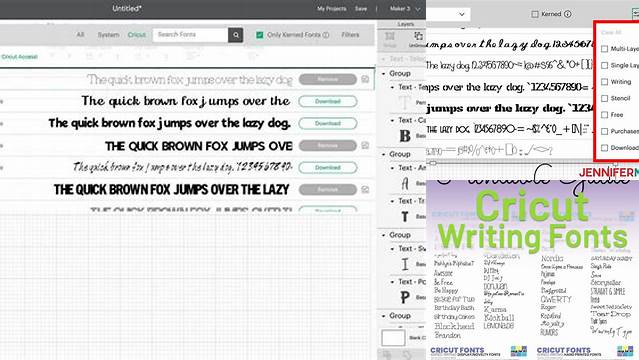
Cricut Access Fonts List: The Ultimate Guide For Crafters
Hey crafters! Ever wondered about diving deep into the world of Cricut Access fonts list PDF and unlocking a treasure trove of creative possibilities? Well, buckle up because weâre about to embark on an exciting journey! This guide will cover everything from understanding what Cricut Access is, to exploring the vast library of fonts available, and even how to manage and use those fonts effectively. Letâs get started, guys!
What is Cricut Access?
Okay, so first things first, letâs talk about what Cricut Access actually is. Think of it as a subscription service that gives you, the creative genius, unlimited access to a massive library of images, fonts, and ready-to-make projects. It's like Netflix, but for crafters! This means you can kiss those individual purchases goodbye and say hello to endless crafting fun. Cricut Access is designed to fuel your creativity without breaking the bank. With a subscription, you gain entry into a world where inspiration never runs dry. Whether you're into vinyl decals, personalized cards, or intricate paper crafts, Cricut Access provides the resources you need to bring your visions to life. The subscription model not only saves you money in the long run but also encourages experimentation and exploration of new crafting techniques. You can explore a variety of styles and themes, discovering fonts and images you might never have considered before. It's like having a personal crafting concierge, always ready to provide you with the perfect elements for your next project. Cricut Access also offers exclusive discounts on products and materials, adding even more value to your subscription. So, if you're serious about crafting and want to maximize your creative potential, Cricut Access is definitely worth considering. With its vast library and money-saving benefits, it's a game-changer for crafters of all levels.
Benefits of Using Cricut Access Fonts
One of the coolest perks of Cricut Access is the huge font library. Cricut Access fonts list PDF offers a diverse selection to elevate your projects. Forget about being stuck with the same old basic fonts. This subscription unlocks a world of typography possibilities. Imagine having access to thousands of fonts, ranging from elegant scripts to bold sans-serifs, all at your fingertips. Using Cricut Access fonts not only broadens your creative horizons but also ensures that your projects stand out. Whether you're designing personalized invitations, creating custom apparel, or adding intricate details to home décor, the right font can make all the difference. With Cricut Access, you can easily find the perfect font to match your style and vision. Plus, the fonts are all licensed for commercial use, so you can confidently create and sell your products without worrying about copyright issues. The convenience of having a vast font library at your disposal saves you time and effort, allowing you to focus on the fun aspects of crafting. No more scouring the internet for free fonts or purchasing individual font licenses. Cricut Access simplifies the process and empowers you to create stunning designs with ease. It's a true game-changer for anyone who loves to craft and wants to take their projects to the next level.
Popular Font Styles Available in Cricut Access
Let's talk variety! Cricut Access fonts list PDF offers a ton of different font styles to suit any project. Whether youâre going for something elegant and formal or fun and whimsical, thereâs a font for that. Think about classic serif fonts for a sophisticated look, playful script fonts for invitations, or bold sans-serif fonts for modern designs. Youâll find fonts perfect for wedding invites, birthday banners, personalized mugs, and everything in between. Exploring the popular font styles can really spark your creativity and help you discover new ways to enhance your projects. Cricut Access also includes a range of decorative and display fonts that add a unique touch to your designs. These fonts often feature intricate details, stylized letterforms, and eye-catching embellishments. They're perfect for creating logos, branding materials, and other visually striking elements. With so many options to choose from, you can easily find the perfect font to match your style and vision. The Cricut Access font library is constantly updated with new fonts, so you'll always have fresh options to explore. Whether you're a seasoned designer or a beginner crafter, the vast selection of font styles available in Cricut Access will inspire you to create amazing things.
Tips for Choosing the Right Font for Your Project
Choosing the right font can make or break your project. First, consider the overall tone and style youâre aiming for. Is it formal or casual? Modern or vintage? The font should complement the theme. Also, think about readability. A super fancy script font might look pretty, but if people canât read it, whatâs the point? Make sure the font is clear and easy to read, especially for important text. Contrast is also key. If youâre using multiple fonts, make sure they contrast well with each other. For example, pair a bold sans-serif with a delicate script for a balanced look. Consider the size of the text. Some fonts look great at large sizes but become illegible when theyâre small. Test out different sizes to see what works best. And finally, donât be afraid to experiment! Try out different font combinations and see what you like. The best way to find the perfect font is to play around and have fun with it. By following these tips, you'll be able to choose fonts that enhance your projects and convey the right message. Remember, the right font can elevate your designs and make them more visually appealing. So, take your time, explore your options, and have fun with it!
Troubleshooting Common Font Issues in Cricut Design Space
Sometimes things donât go as planned, right? If youâre having trouble with fonts in Cricut Design Space, donât panic! One common issue is that a font might not be displaying correctly. Make sure your Design Space software is up to date, as updates often include bug fixes and improvements. Another issue could be that the font is not fully loaded. Try refreshing Design Space or restarting your computer. If a font is still not showing up, double-check that itâs actually part of your Cricut Access subscription. Sometimes, fonts can be added and removed from the library, so itâs worth verifying. If youâre using a font that you downloaded from somewhere else, make sure itâs properly installed on your computer. Also, ensure that the font is compatible with Cricut Design Space. Some fonts might not work well with the software, so itâs best to stick to fonts that are known to be compatible. If youâre still having trouble, reach out to Cricutâs customer support. Theyâre usually pretty helpful and can guide you through troubleshooting steps. By addressing these common issues, you can keep your font experience smooth and enjoyable. Remember, troubleshooting is a part of the creative process, so don't get discouraged if you encounter a few bumps along the way.
Managing Your Cricut Access Subscription
Keeping track of your Cricut Access subscription is essential to ensure you can continue enjoying all those awesome fonts and images. Make sure you know when your subscription is up for renewal so you donât accidentally lose access. You can usually manage your subscription through your Cricut account online. There, you can update your payment information, change your subscription plan, or cancel your subscription if needed. Managing your subscription also involves understanding the terms and conditions. Be aware of any limitations or restrictions on font usage, especially if youâre using the fonts for commercial purposes. Itâs also a good idea to keep an eye out for any promotions or discounts on Cricut Access subscriptions. Cricut often offers special deals that can save you money on your subscription. By staying informed and proactive, you can ensure that you get the most out of your Cricut Access subscription. This includes taking advantage of all the resources and benefits available to you, such as exclusive discounts on products and materials. So, take a few minutes to review your subscription details and make sure everything is in order. Itâs a small effort that can save you a lot of hassle in the long run.
Creative Project Ideas Using Cricut Access Fonts
Alright, let's get those creative juices flowing! The possibilities are endless when it comes to using Cricut Access fonts. How about creating personalized greeting cards for birthdays or holidays? Or designing custom T-shirts with catchy slogans and unique typography? You could also make stunning wall decals for your home décor, adding a personal touch to any room. These creative project ideas are just the tip of the iceberg. Consider making personalized mugs, tote bags, or even custom phone cases. Cricut Access fonts can also be used to create logos and branding materials for your small business. The key is to think outside the box and experiment with different font styles and combinations. Don't be afraid to try new things and push your creative boundaries. With Cricut Access, you have access to a vast library of fonts and images, so there's no limit to what you can create. Whether you're a seasoned crafter or a beginner, Cricut Access can help you bring your ideas to life. So, grab your Cricut machine, fire up Design Space, and start exploring the endless possibilities of Cricut Access fonts. Let your imagination run wild and see what amazing things you can create!
Alright guys, weâve covered a ton about Cricut Access fonts list PDF! From understanding what Cricut Access is, to exploring the diverse font library, and even getting some creative project ideas, youâre now well-equipped to dive in and start crafting. Remember to experiment, have fun, and let your creativity shine! Happy crafting!